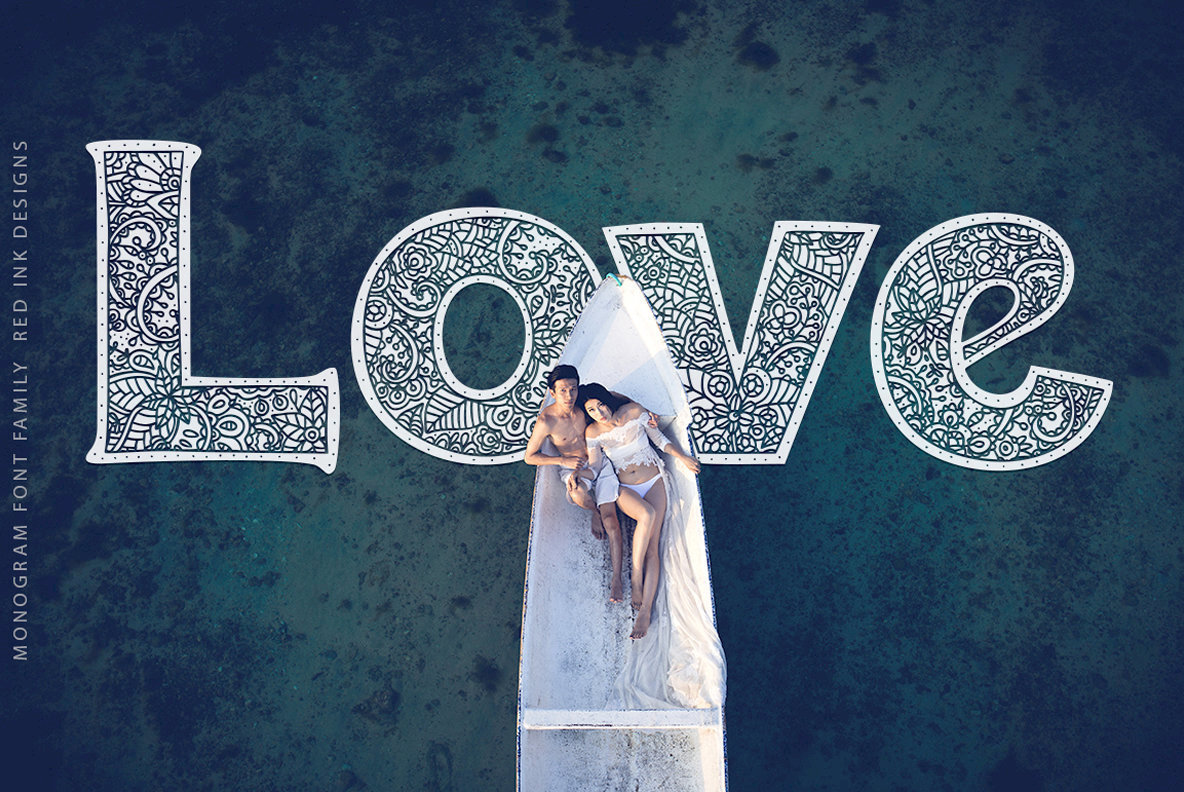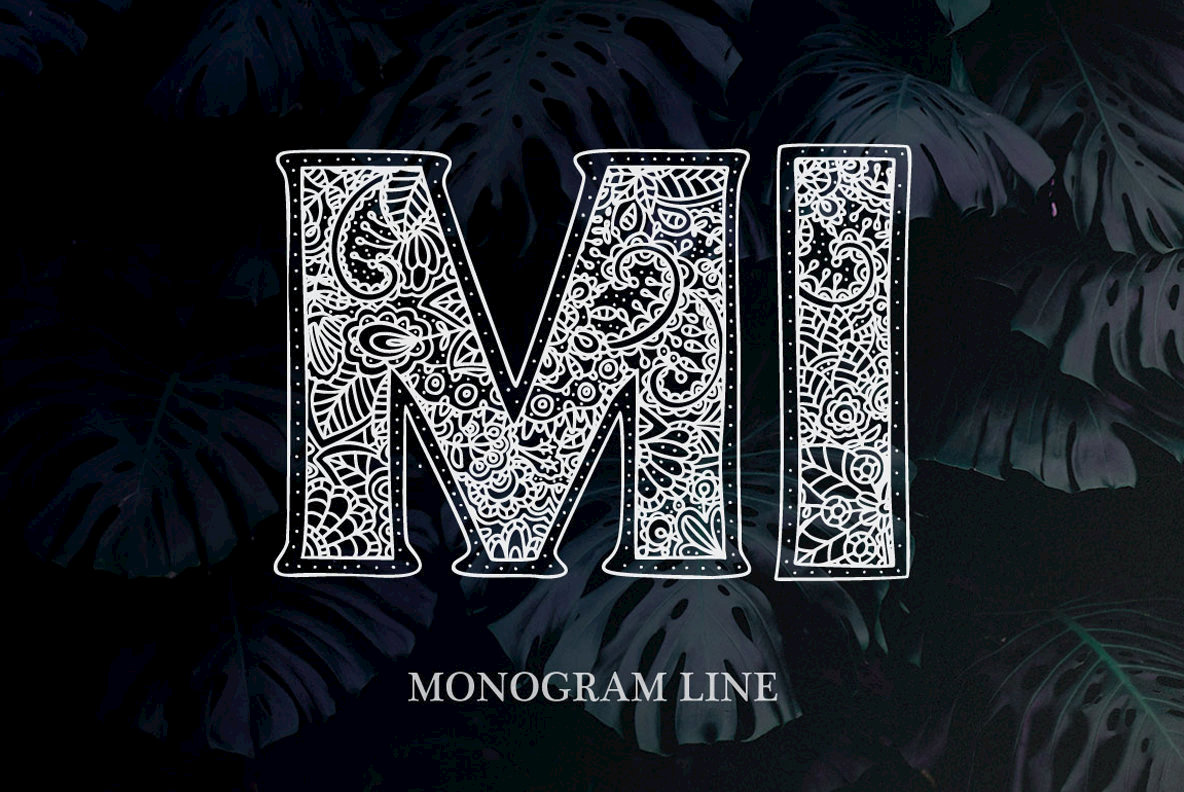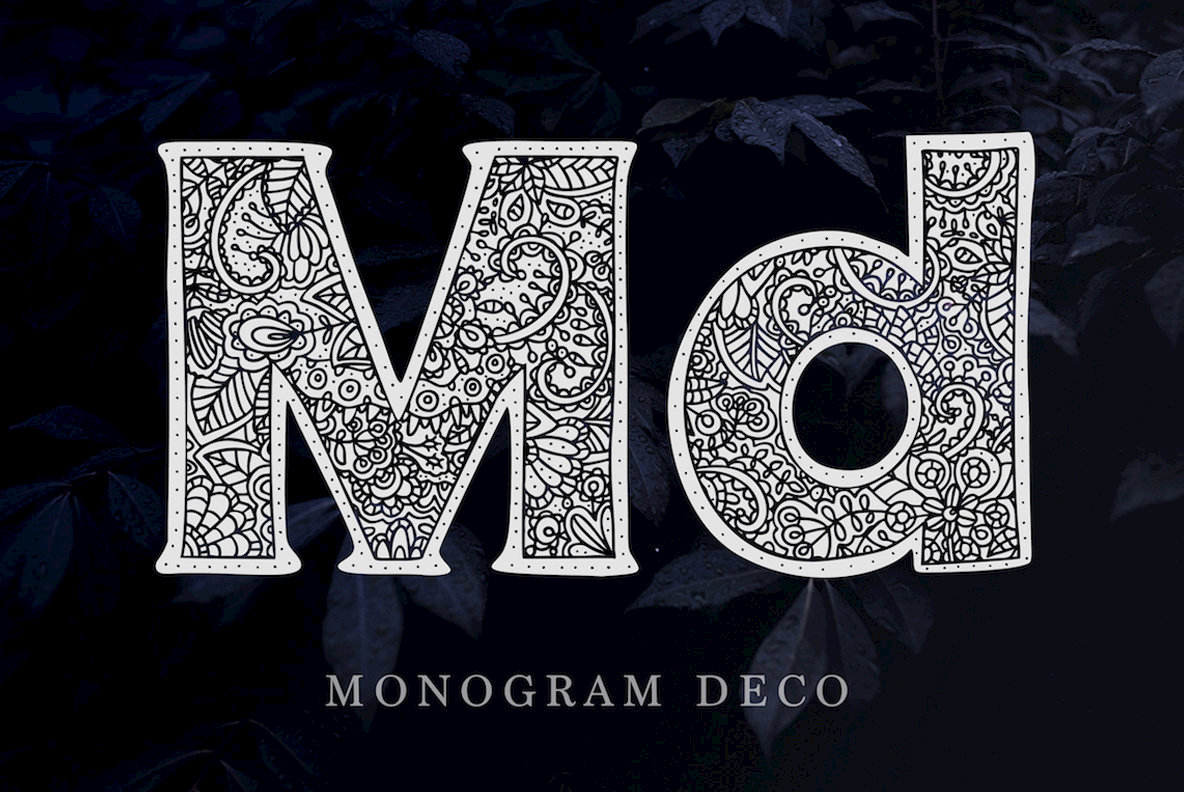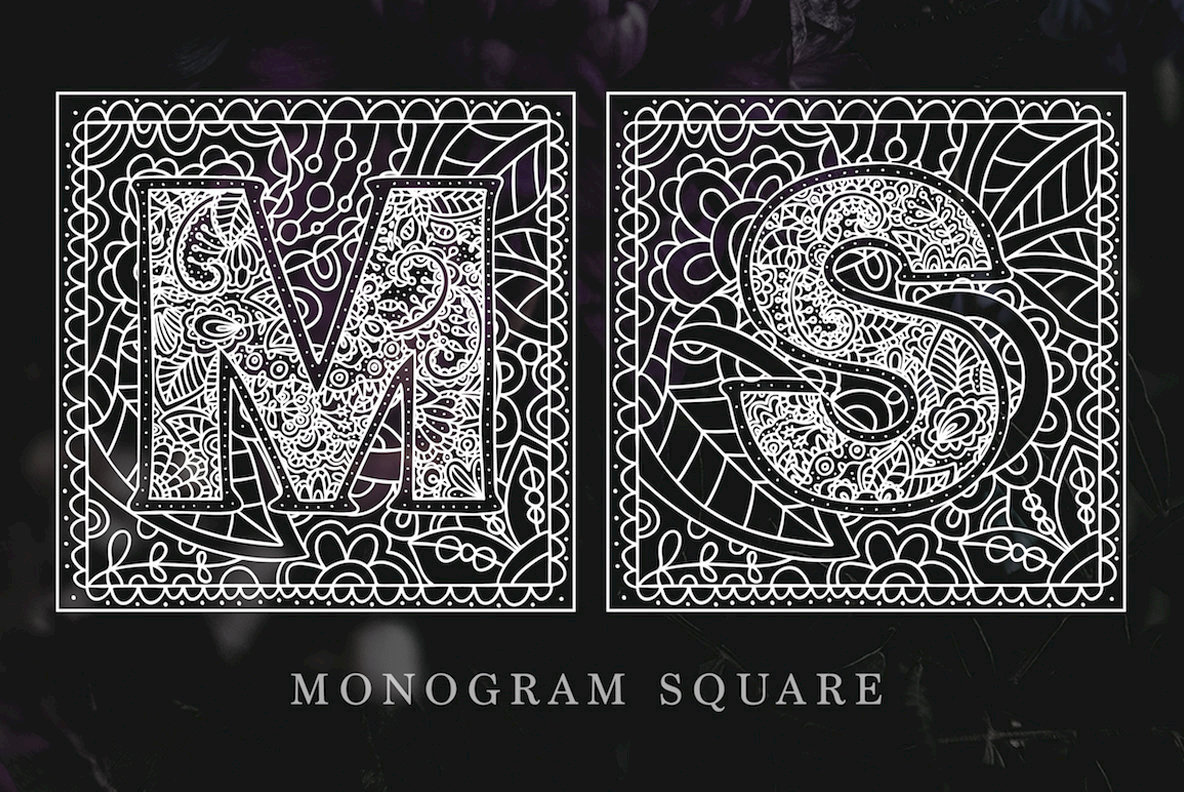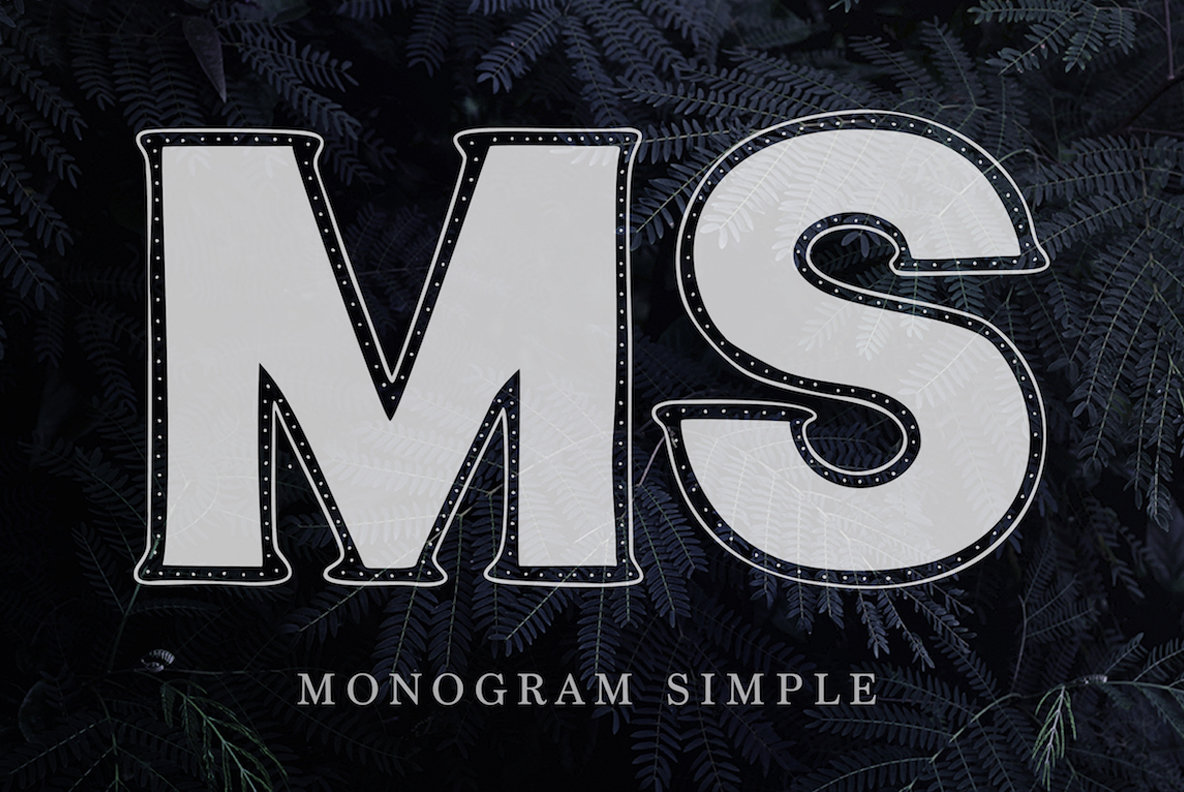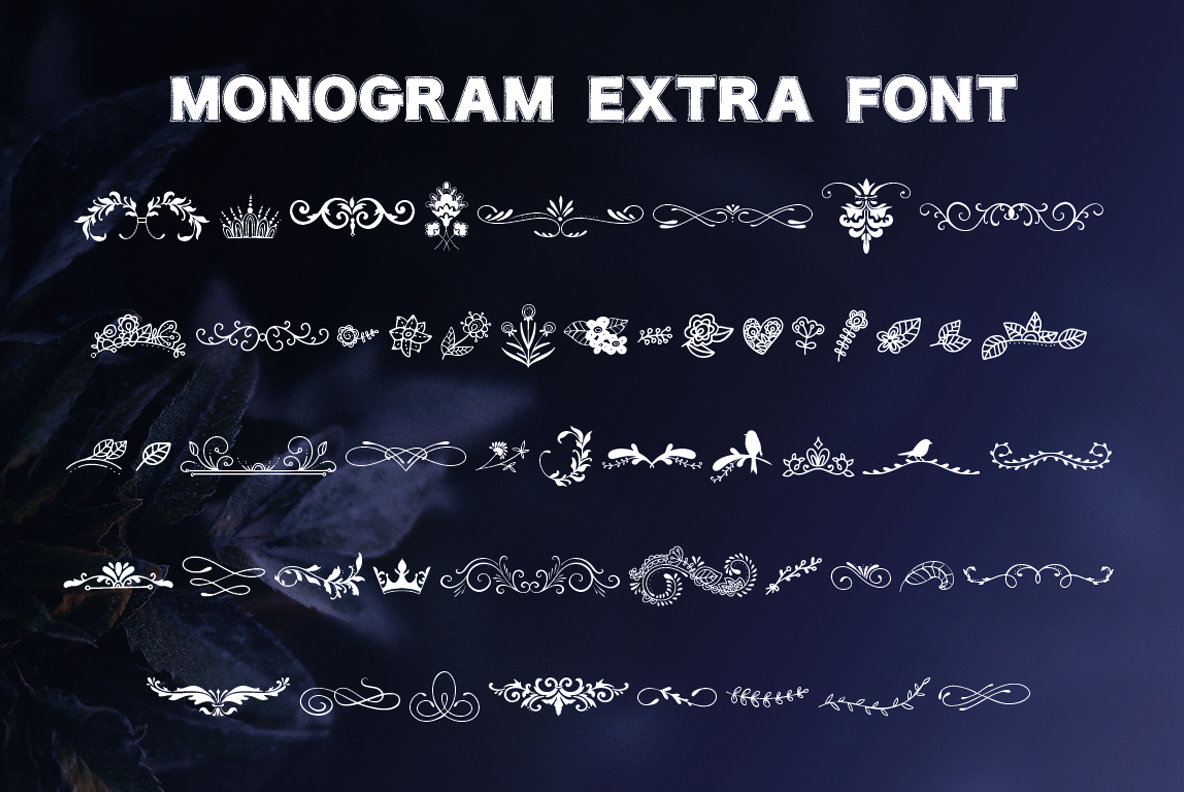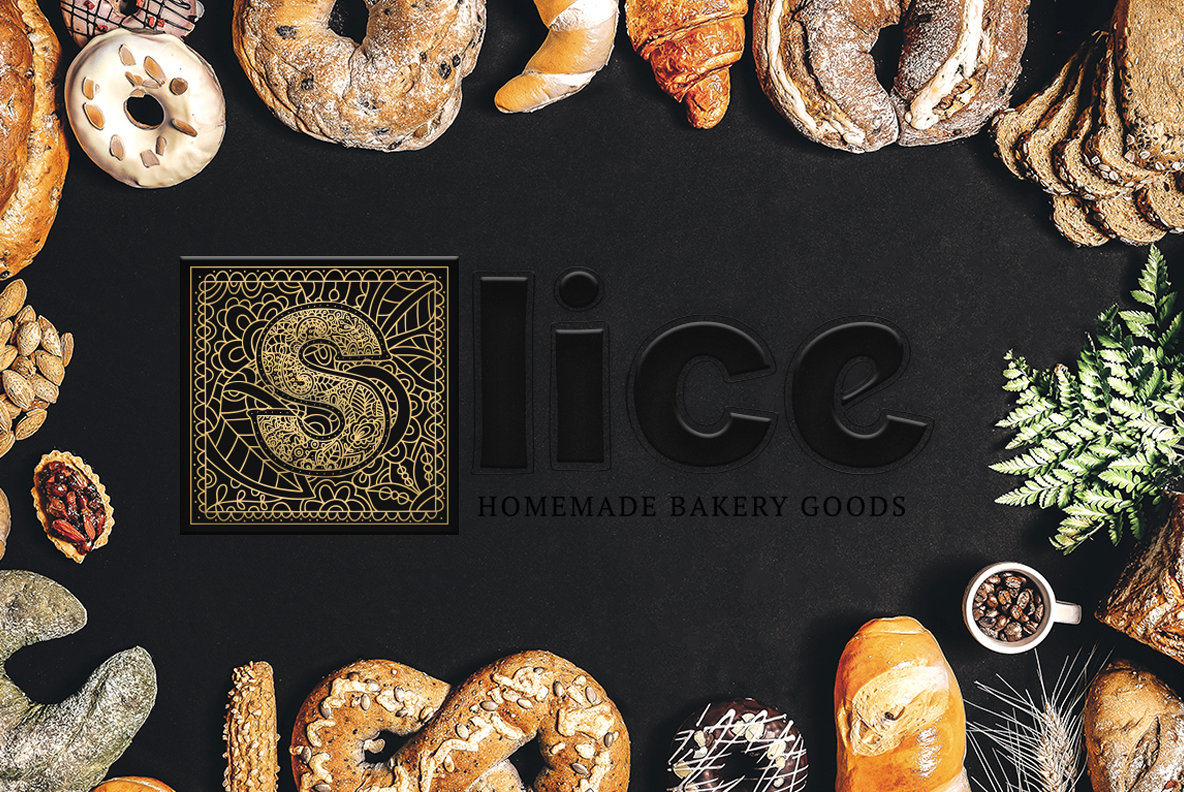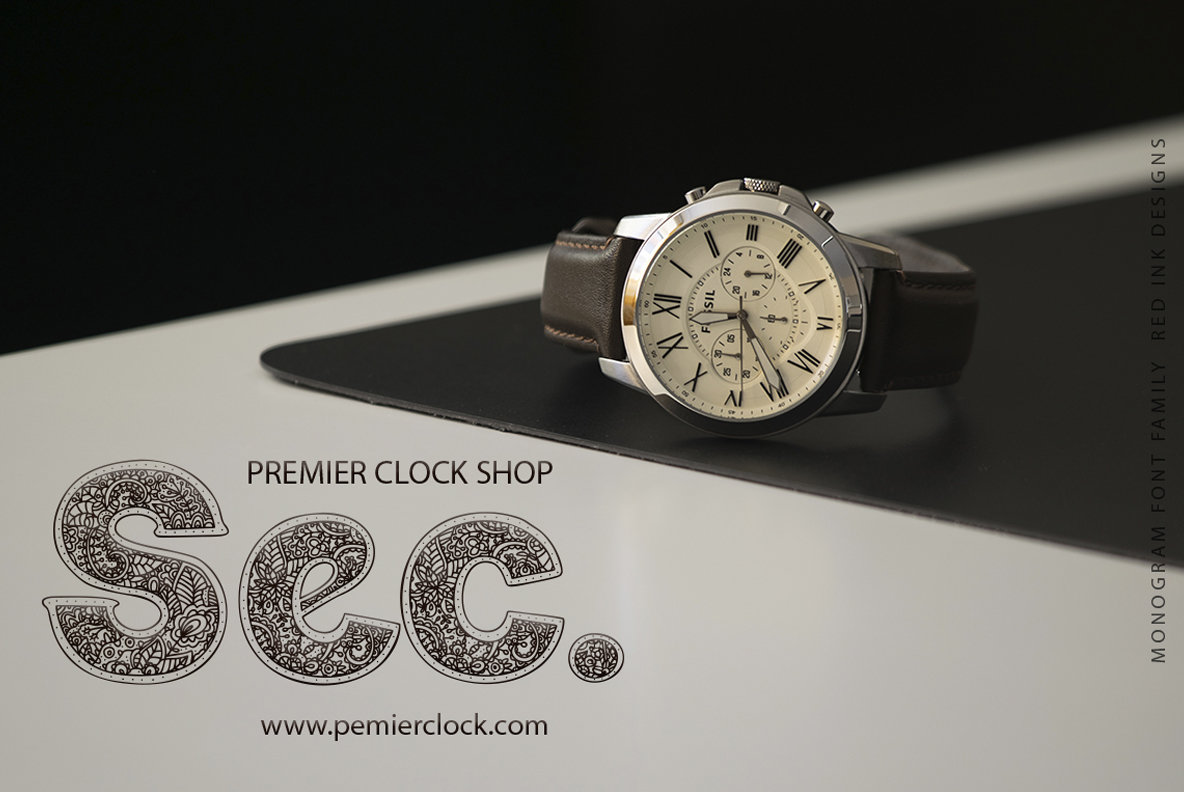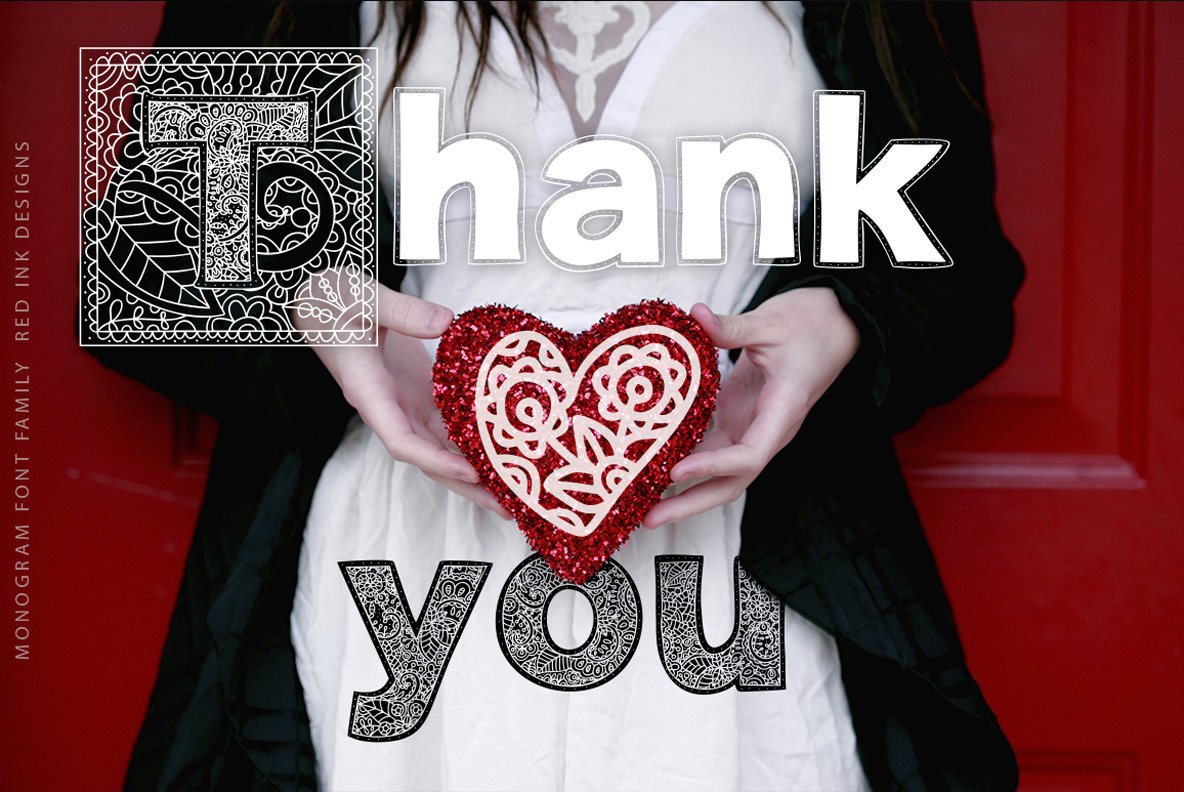
Monogram Font Family
Monogram Font Family includes 5 elegant fonts, where each letter is a beautiful detailed art piece. Good looking and creative, together or apart all fonts were created for beautiful typographic projects, amazing designs, for logo, branding materials, cards, posters, mugs, photography overlays and so much more!
Monogram font letters look great in large sizes, where you can see the detailed ornament and note a big work done with each glyph. Font includes multilingual support.